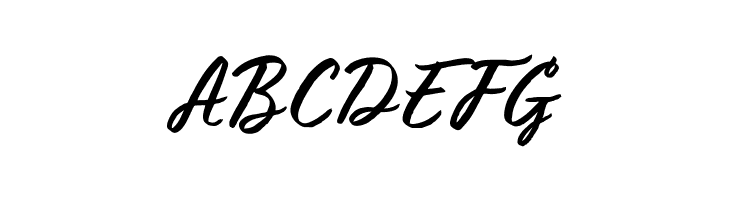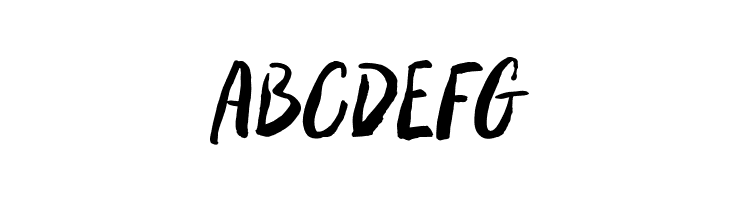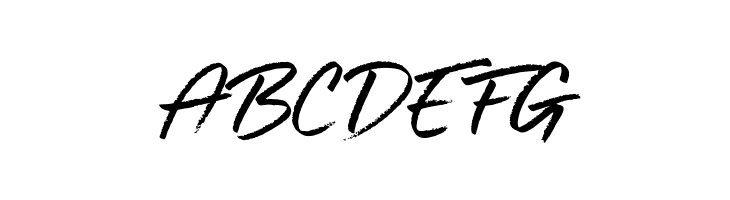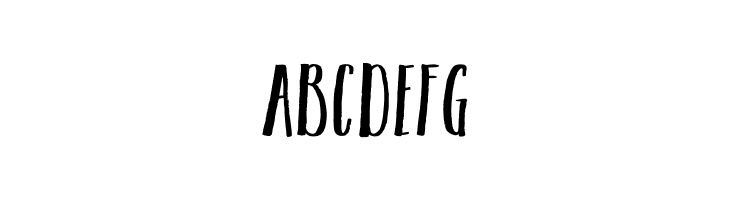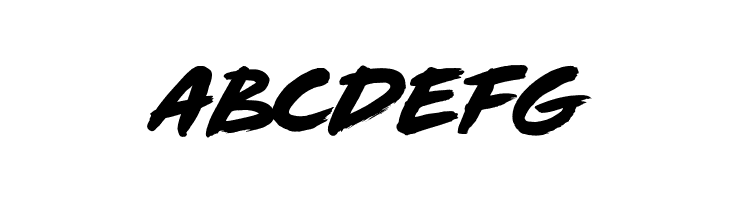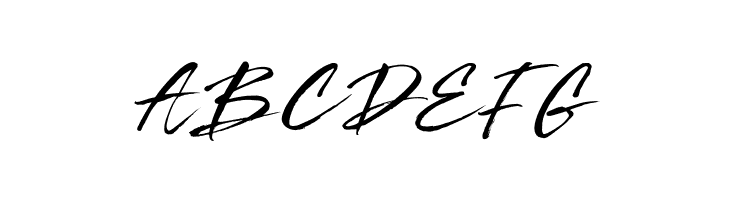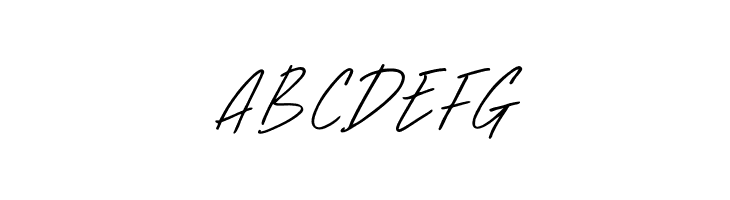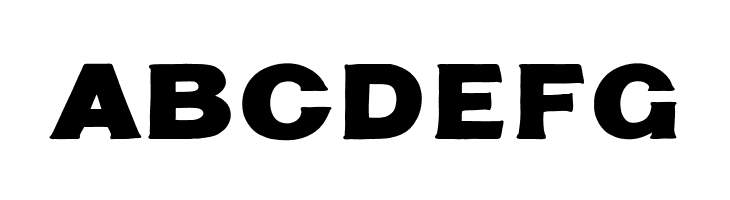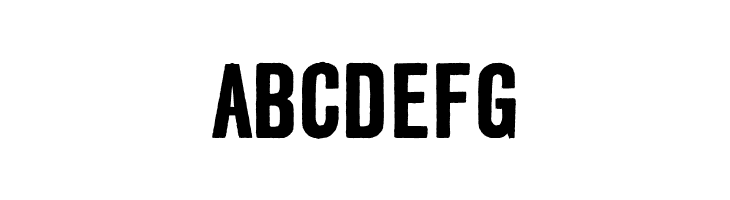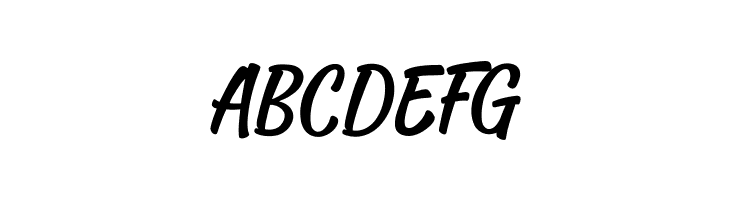
Make Believe Font
A casual, handwritten font with fluid and natural strokes.
Mount Royal Font
A flowing, cursive font with a handwritten, elegant style.
Post Box Font
A bold, rounded font with a modern yet classic style.
Radio Active Font
A bold, brush-style script font with dynamic, hand-painted strokes.
Rare Essence Font
A dynamic, brush-style script font with a handwritten appearance.
Raw Soul Font
A casual, handwritten font with fluid and natural strokes.
Secret Weapon Font
A bold, cursive script font with a fluid, handwritten style.
Semi Strong Font
Bold, blocky font with a strong, modern presence.
Short Circuit Font
A dynamic, fluid script font with elegant, flowing strokes.
Silver Lining Font
A bold, cursive font with a dynamic and fluid style.
Simulate Minds Font
A fluid, cursive font with a modern handwritten style.
Sixty Nine Font
A dynamic and energetic script font with fluid, cursive strokes.
Spot Light Font
A bold, hand-drawn font with an expressive, brush-like texture.
Stay Woke Font
A bold, brush-style font with dynamic, hand-painted strokes.
Sun Ray Font
A bold, brushstroke-style font with a dynamic and artistic appearance.
Sure Fire Font
A bold, brush-style font with a dynamic and artistic feel.
Take Away Font
A bold, cursive handwritten font with a fluid and connected style.
Tuff Stuff Font
Wreck Effect Font